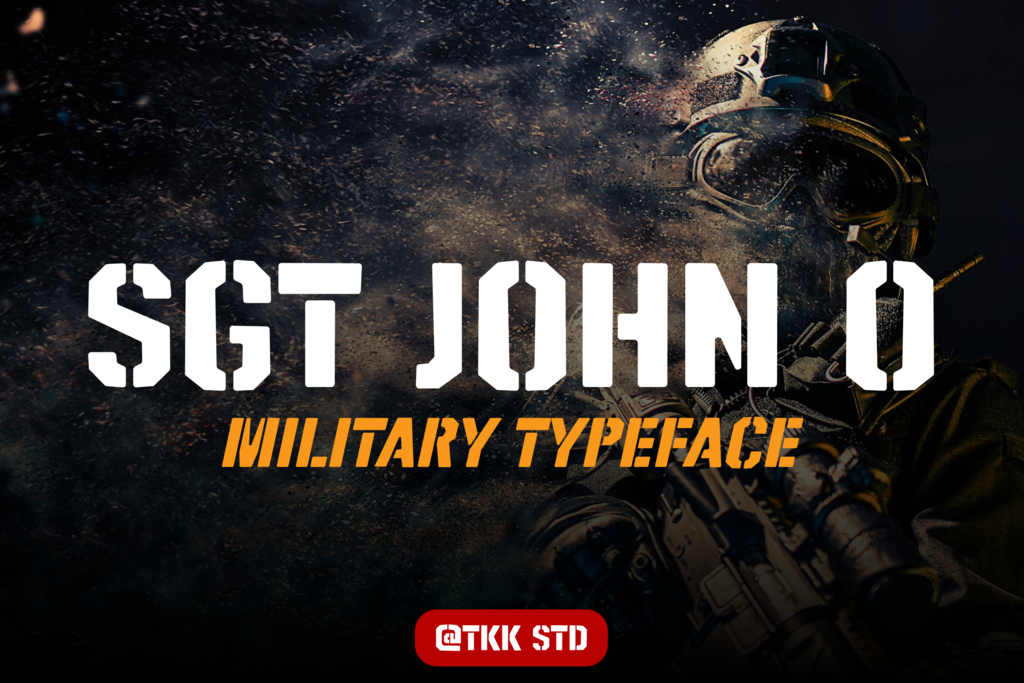
SGT. Jhon O - Stencil Font
SGT JHON O stencil font has a strong cutout font that emphasizes the military shape you took. The rounded corner doesn’t take away the sturdy and well command structure. Suit perfectly for online games, poster, movie title, military t-shirt/apparel, magazine, youtube covers, youtube thumbnails, social media page covers and so on… Happy designing. Whatís Included :